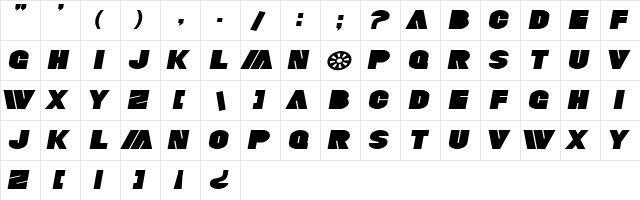
SF Fortune Wheel Exp Bold Italic
Design Context for SF Fortune Wheel Exp Typeface
SF Fortune Wheel Exp is a composed and adaptable typeface that performs quietly and consistently across a wide range of design contexts. The slanted form adds forward momentum and visual energy. Its bold stroke weight gives it real presence on the page.
Pro Tip: Use SF Fortune Wheel Exp for emphasis, pull quotes, and subheadings where its slanted energy can add rhythm to the layout.